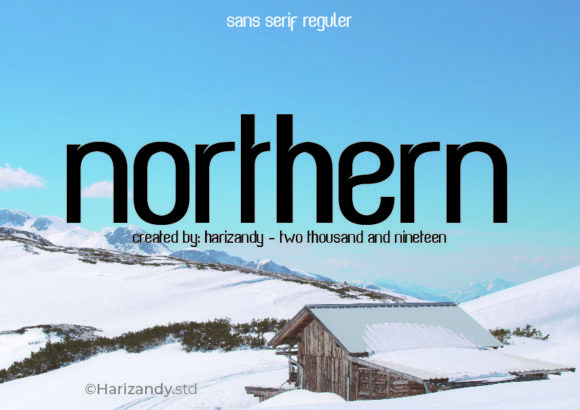
The Ultimate Font for Sports-Themed Designs: Arnorth
I’ll never forget the time I was working on a sports branding project for a local basketball team. I had the logo, the color scheme, and the overall aesthetic nailed down, but something was missing. As I scrolled through font after font, I just couldn’t find the perfect fit. That was until I stumbled upon Arnorth, a cool and fun sans serif font with a sporty feel that instantly elevated my design. In this article, I’ll share my experience with Arnorth, its features, and how to make the most of it in your designs.
An Honest Review of Arnorth
What I Love About Arnorth
- ✨ Sporty and Dynamic: Arnorth has a unique, energetic vibe that’s perfect for sports-themed designs.
- ✅ Highly Legible: The font is clear and easy to read, even at smaller sizes.
- 💡 Versatile: Arnorth works well for titles, headings, and even body text.
While Arnorth is an excellent font, it’s not without its quirks. For instance:
- 🤔 Limited Serif Options: As a sans serif font, Arnorth might not be the best choice for designs that require a traditional serif look.
- ⚠️ Some Glyphs May Overlap: When using certain OpenType features or stylistic alternates, some glyphs may overlap. This can be easily fixed with manual kerning, but it’s something to be aware of.
The Story Behind Arnorth
Arnorth was designed with sports enthusiasts in mind. Its creator, a passionate designer and sports fan, aimed to craft a font that would capture the energy and dynamism of athletic competitions. Inspired by classic sports typography and modern sans serif fonts, Arnorth was born.
Q: What type of designs is Arnorth best suited for?
A: Arnorth is perfect for sports-themed designs, such as logos, posters, and branding materials.
Q: Does Arnorth support OpenType features?
A: Yes, Arnorth supports various OpenType features, including stylistic alternates, ligatures, and glyphs.